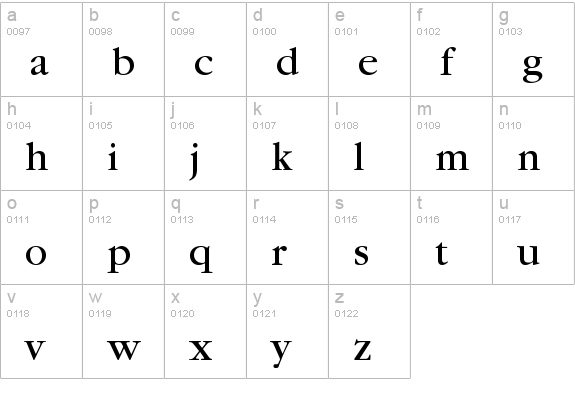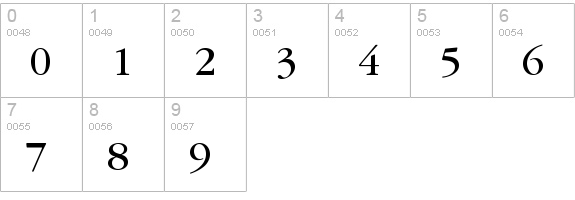
GaramondEF-Book is a comfortable, highly readable variant in the GaramondEF typeface family \xE2\x80\x94 well suited to long-form body text, articles, and editorial content.
GaramondEF-Book is a timeless and elegant font that exudes sophistication and grace. With its classic and refined design, it captures the essence of traditional typography, making it perfect for a wide range of projects. This font showcases the beauty of the Garamond typeface, known for its delicate serifs and balanced letterforms. GaramondEF-Book effortlessly combines readability with a touch of artistic flair, making it a favorite among designers, typographers, and creatives alike. What sets GaramondEF-Book apart is its availability as a free font. Yes, you read that right – this exquisite typeface is freely available to download at FontsMarket.com. Whether you're a professional designer looking to enhance your projects or an aspiring artist seeking to add a touch of elegance to your work, GaramondEF-Book presents a fantastic opportunity to access a high-quality font without any cost. GaramondEF-Book can perfectly complement various design styles, from traditional to modern, and everything in between. Its versatility makes it suitable for a wide range of applications, including branding, editorial design, invitations, posters, and much more. With its clean lines and well-proportioned letterforms, GaramondEF-Book ensures exceptional legibility in both print and digital formats. It effortlessly adapts to different sizes and resolutions, guaranteeing that your message is conveyed with clarity and professionalism. By choosing GaramondEF-Book, you not only acquire a visually stunning font but also become part of a community that appreciates the beauty of typography. Join the countless designers and enthusiasts who have found inspiration in GaramondEF-Book's timeless appeal, and experience the joy of working with a font that truly stands the test of time. Download GaramondEF-Book for free at FontsMarket.com and unlock a world of creative possibilities. Elevate your designs, captivate your audience, and make a lasting impression with this exceptional font that is freely available to enhance your artistic endeavors.